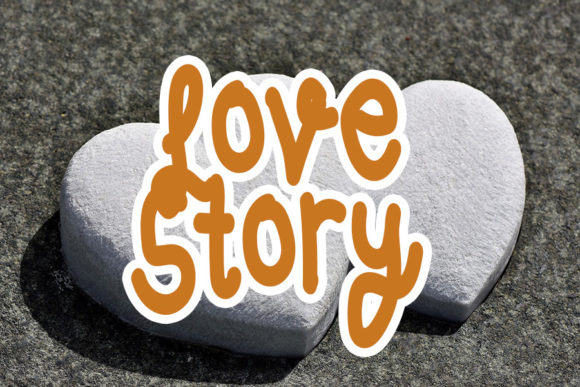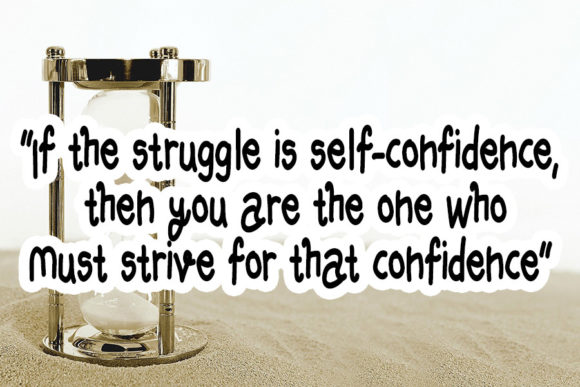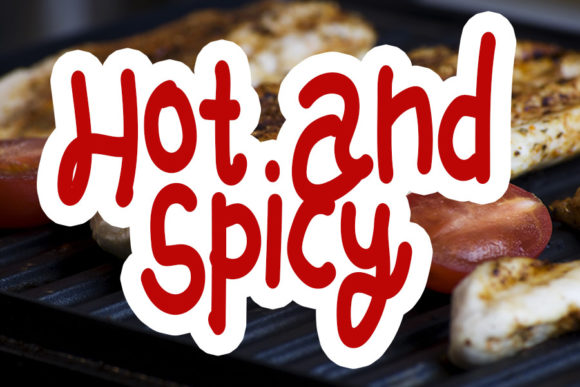
Celebrities Font: Elevate Your Designs with a Simple yet Stylish Handwritten Style
Are you a designer or crafter looking for a font that exudes elegance and sophistication? Look no further than Celebrities Font, a beautiful handwritten font that is simple, clear, and well-spaced. With its nicely rounded characters and pretty stylish vibe, Celebrities Font is perfect for a wide range of design projects, from notebooks and book covers to magazines, apparel, and more.
What Makes Celebrities Font So Special?
Celebrities Font is a unique and versatile font that offers a range of benefits for designers and crafters. Here are just a few reasons why you might love working with this font:
- Simple and Clear: Unlike some fonts that can be overly ornate or difficult to read, Celebrities Font is simple and clear, making it perfect for use in a variety of design projects.
- Well-Spaced: The characters in Celebrities Font are nicely spaced, which makes it easy to read and understand, even at smaller sizes.
- Handwritten Style: The handwritten style of Celebrities Font gives it a personal and approachable feel that is perfect for designers who want to add a touch of warmth and personality to their work.
- Stylish Vibe: With its nicely rounded characters and flowing lines, Celebrities Font has a pretty stylish vibe that is sure to elevate your designs and make them stand out.
Celebrities Font is a versatile font that can be used in a wide range of design projects, including:
- Notebooks and Journals: Add a touch of elegance and sophistication to your notebooks and journals with Celebrities Font.
- Book Covers: Use Celebrities Font to create eye-catching book covers that will stand out on the shelves.
- Magazines: Celebrities Font is perfect for use in magazines, where its clear and well-spaced characters will make it easy for readers to navigate.
- Apparel: Add a stylish touch to your apparel designs with Celebrities Font, which is perfect for use on t-shirts, hoodies, and more.
Tips for Using Celebrities Font in Your Designs
Here are a few tips for using Celebrities Font in your designs:
- Experiment with Different Sizes: Celebrities Font looks great at a variety of sizes, so don’t be afraid to experiment and find the size that works best for your project.
- Pair with Other Fonts: Celebrities Font pairs well with a range of other fonts, so try combining it with other fonts to create a unique and interesting look.
- Use for Headings and Body Text: Celebrities Font is versatile enough to be used for both headings and body text, making it a great choice for designers who want a font that can do it all.
Celebrities Font is a beautiful and versatile handwritten font that is perfect for designers and crafters who want to add a touch of elegance and sophistication to their work. With its simple and clear characters, nicely rounded style, and stylish vibe, Celebrities Font is sure to become a go-to font for a wide range of design projects. So why wait? Download Celebrities Font today and start elevating your designs!